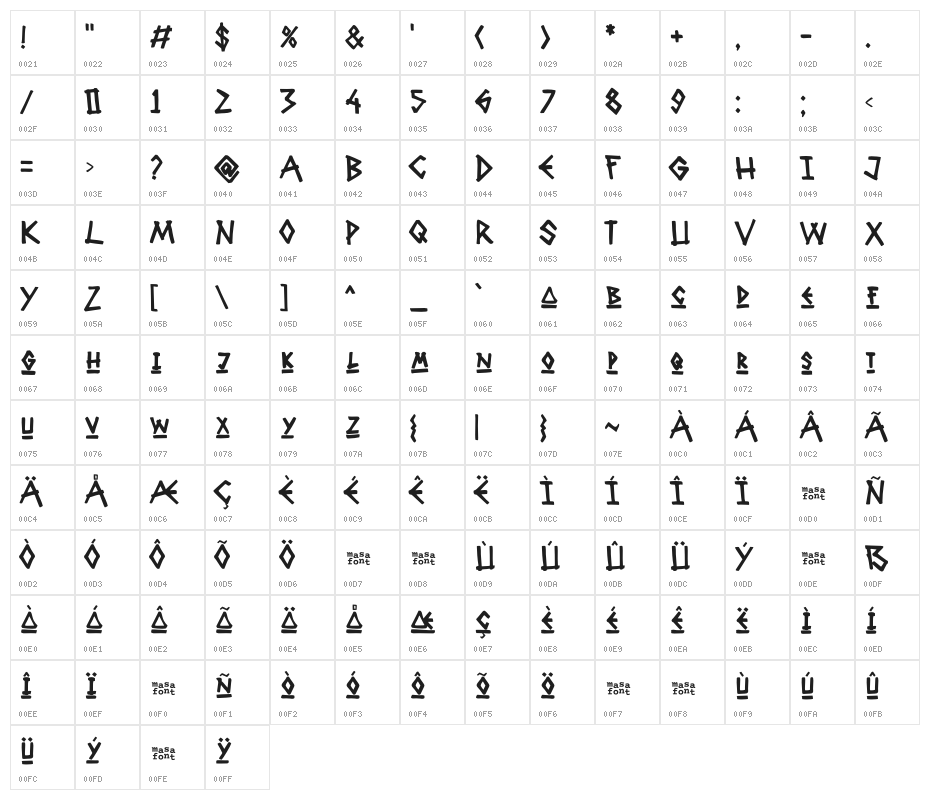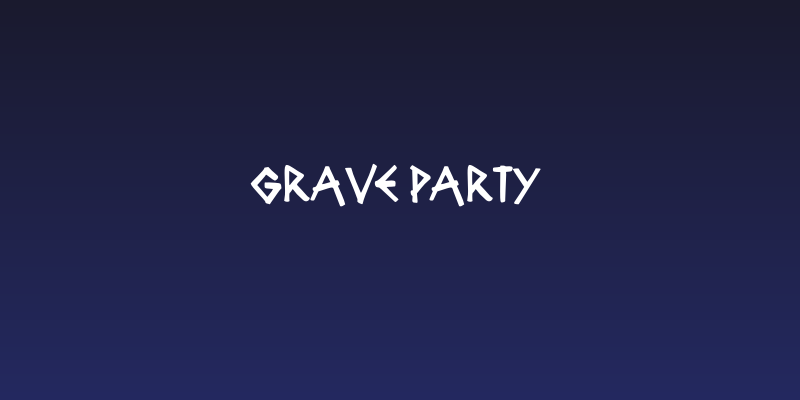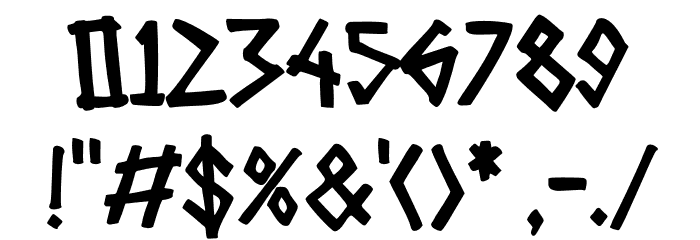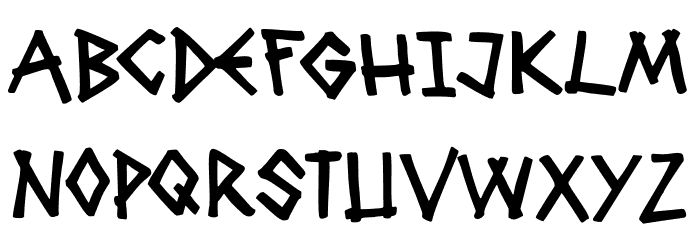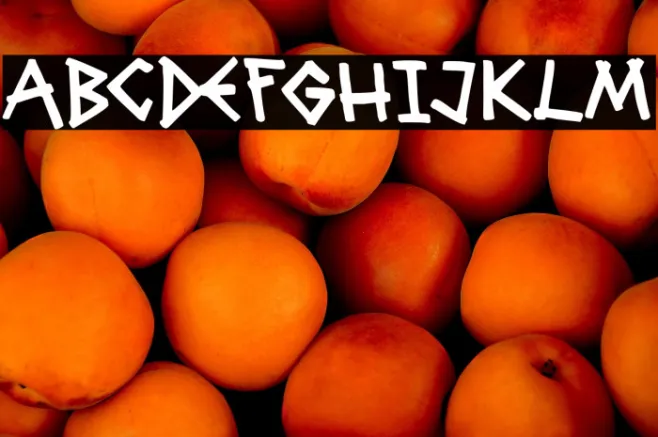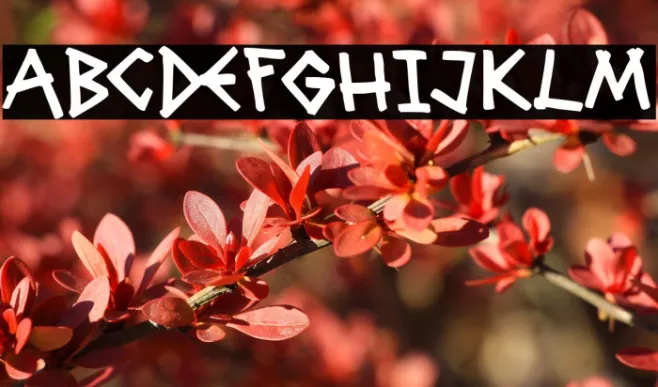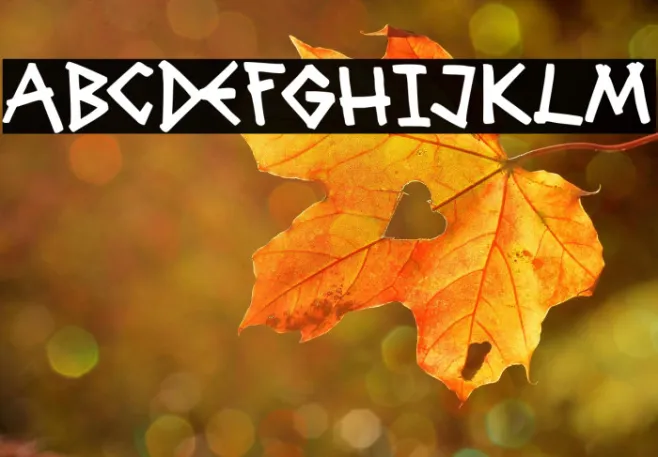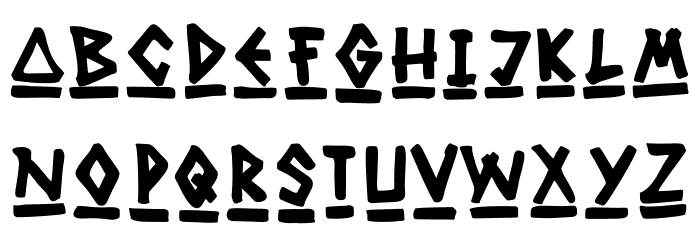
Grave Party Font
Grave Party Description
This font features a bold, hand-drawn style with a playful and slightly chaotic appearance. The characters are irregular and have a rough, sketch-like quality, giving them a unique and artistic flair. The uppercase and lowercase letters maintain a consistent thickness, while the numbers and special characters follow the same design ethos, contributing to a cohesive look. The font's distinctive style is characterized by its uneven lines and exaggerated angles, which add a sense of movement and energy. This makes it particularly suitable for creative and unconventional projects.
| Proposed Projects | Ideal for posters, album covers, event invitations, and any project requiring a creative and artistic touch. |